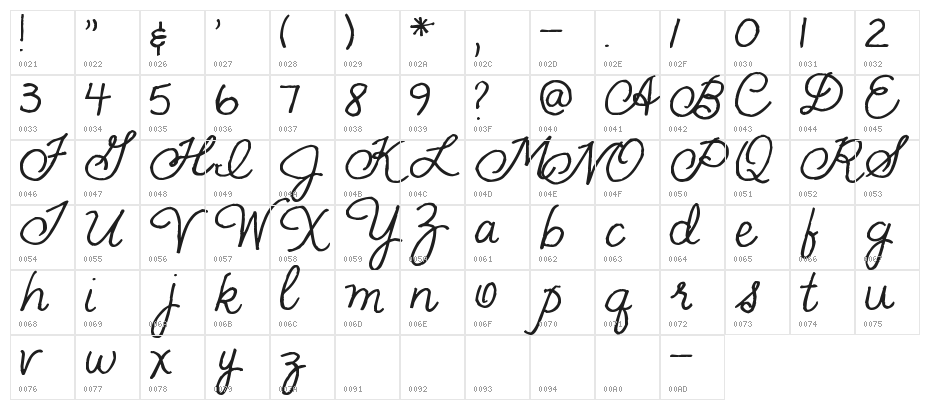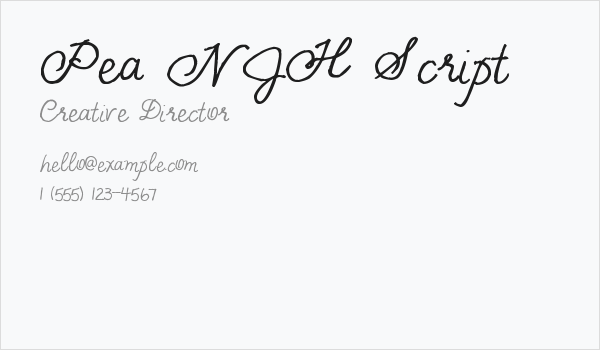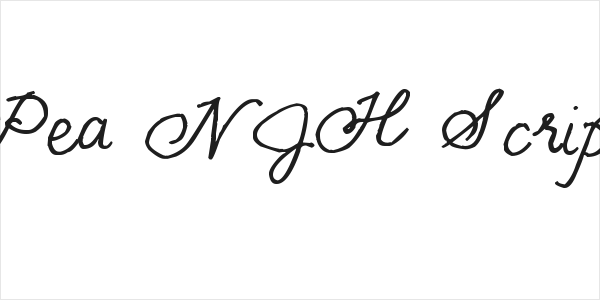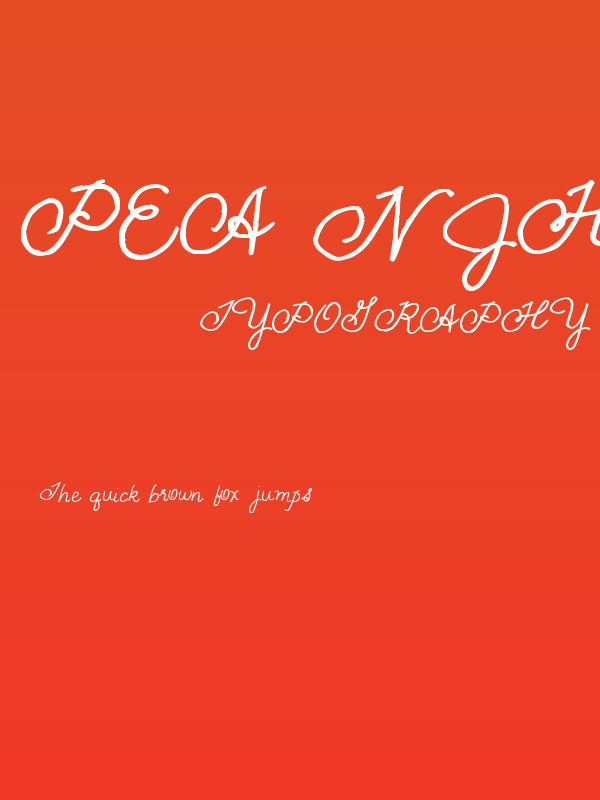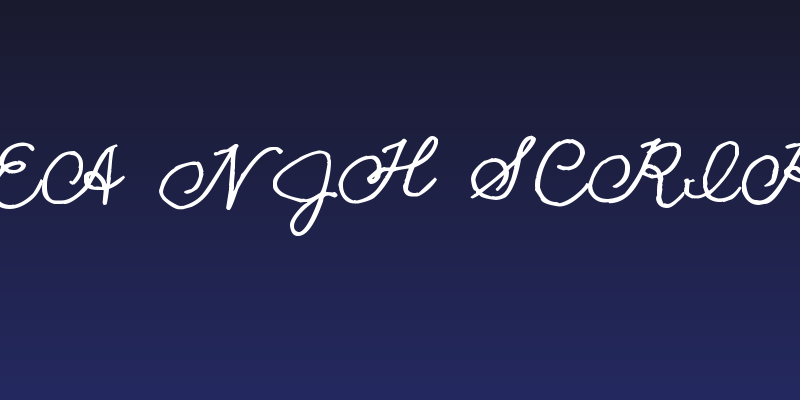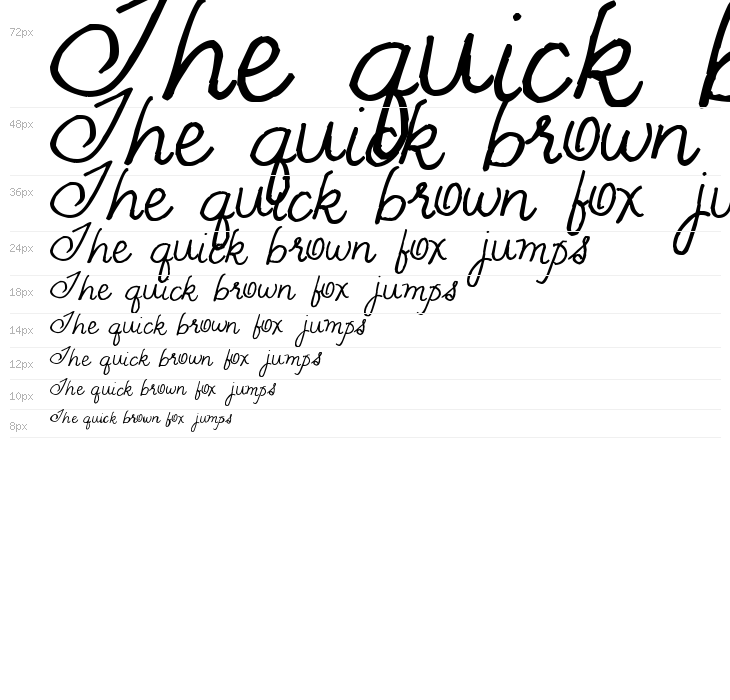
Pea NJH Script Font
✎ Handwritten
| 分类 | Handwritten |
| 整体风格 | Casual, Playful |
| 使用场景 | Logos, Invitations, Greeting Cards |
| 推荐项目 | Ideal for greeting cards, invitations, personal branding, and creative projects that require a friendly and informal touch. |
Pea NJH Script